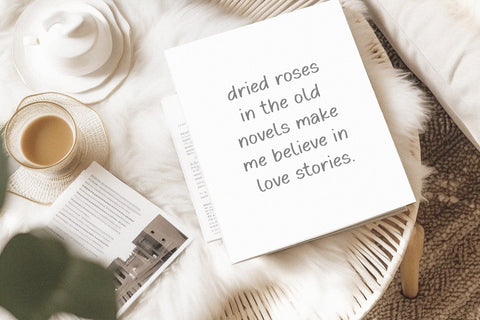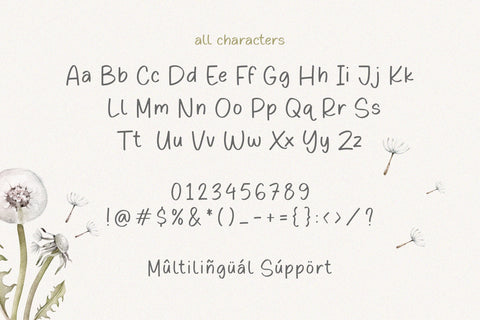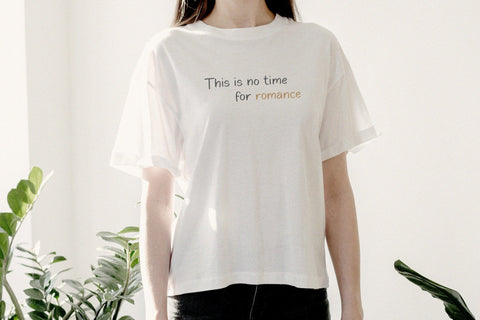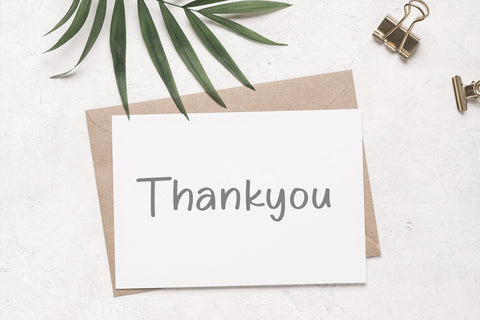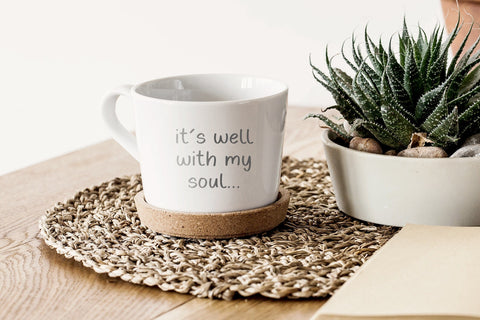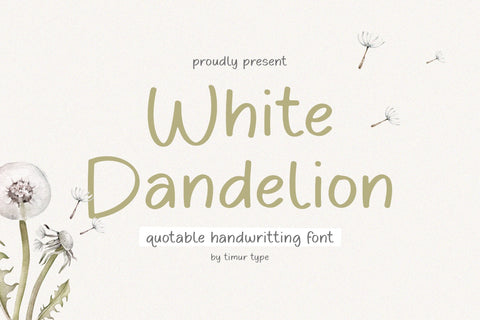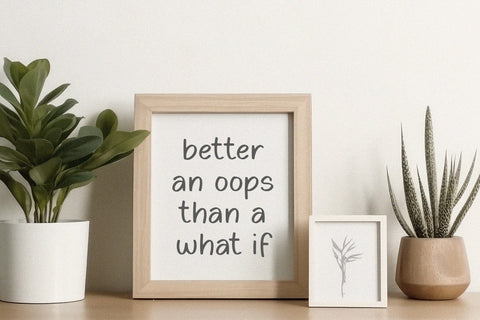
White Dandelion - Qoutable Handwritting Font
White Dandelion is a Qoutable Handwritting Font
This font are a captivating and expressive type of font that embodies the essence of handwritten quotes and phrases. These fonts are designed to mimic the natural movement and irregularities of actual handwriting, capturing the charm and authenticity of personal notes or messages. With their unique character and style, quotable handwriting fonts infuse text with a sense of warmth, personality, and familiarity. They are perfect for creating visually appealing quote graphics, social media posts, inspirational designs, and personalized stationery. With their versatility and ability to convey various moods and messages, quotable handwriting fonts have become a popular choice for designers, writers, and anyone seeking to add a touch of handcrafted charm to their words.
White Dandelion Font also supports multilingualism.